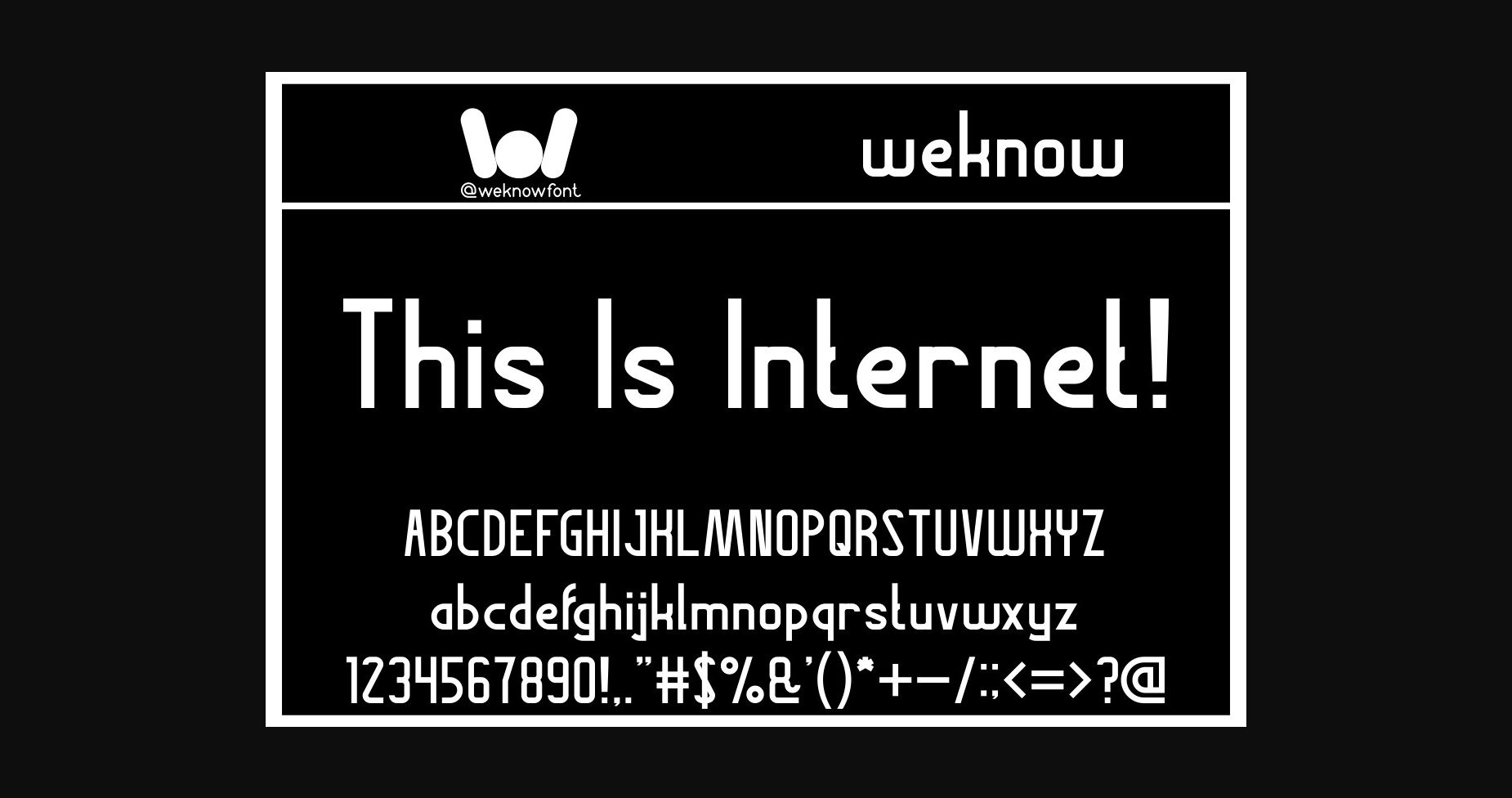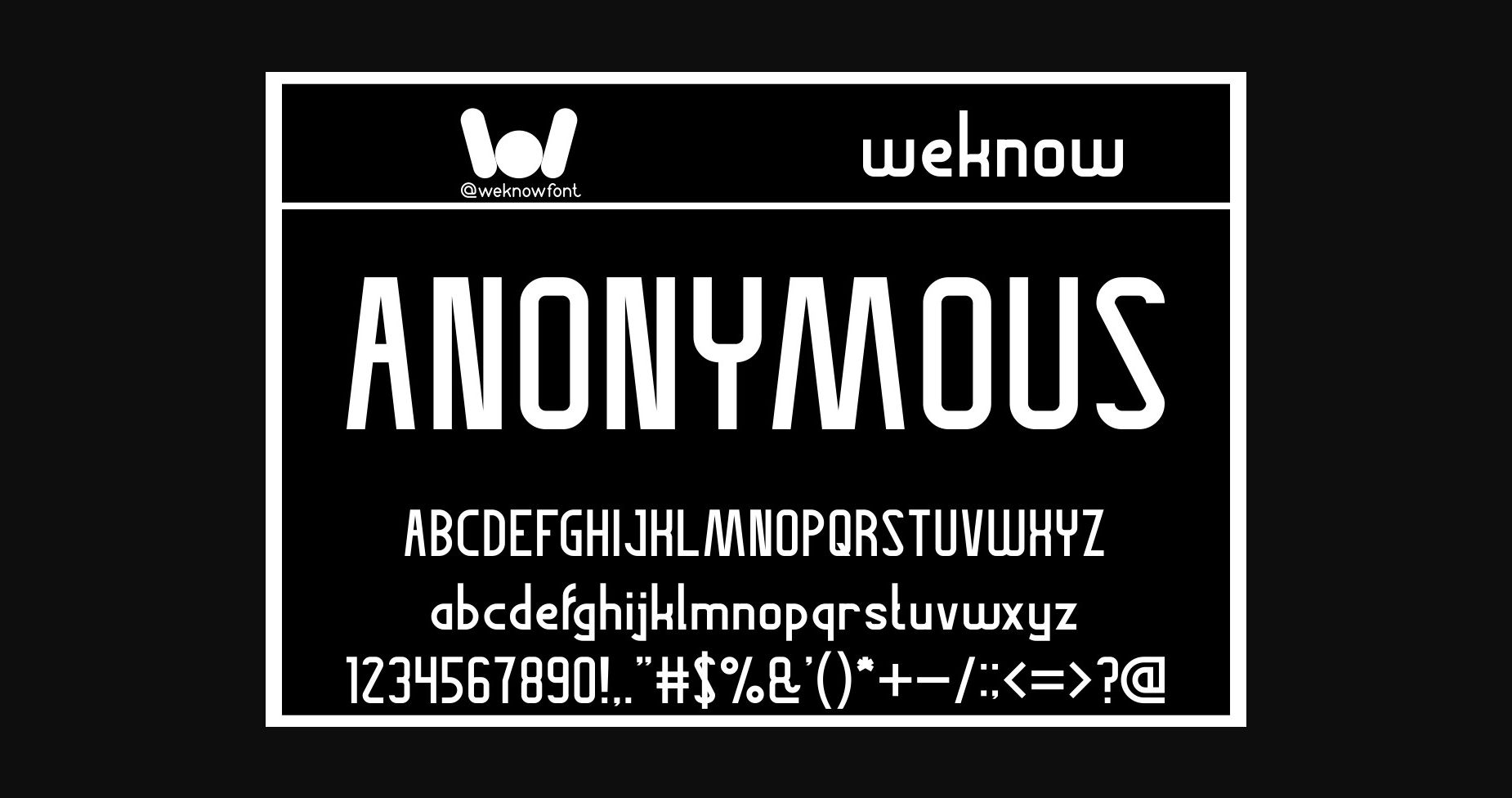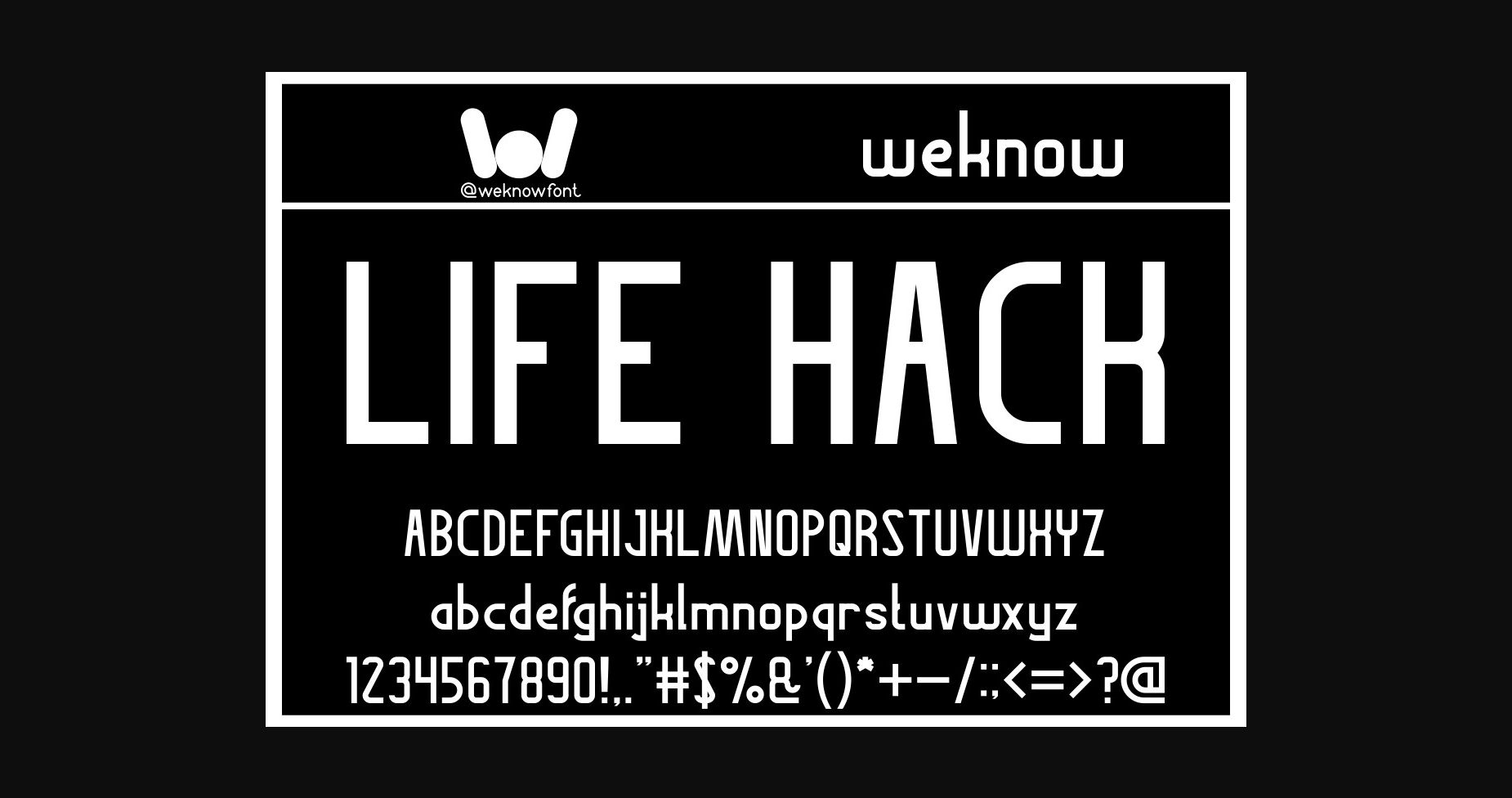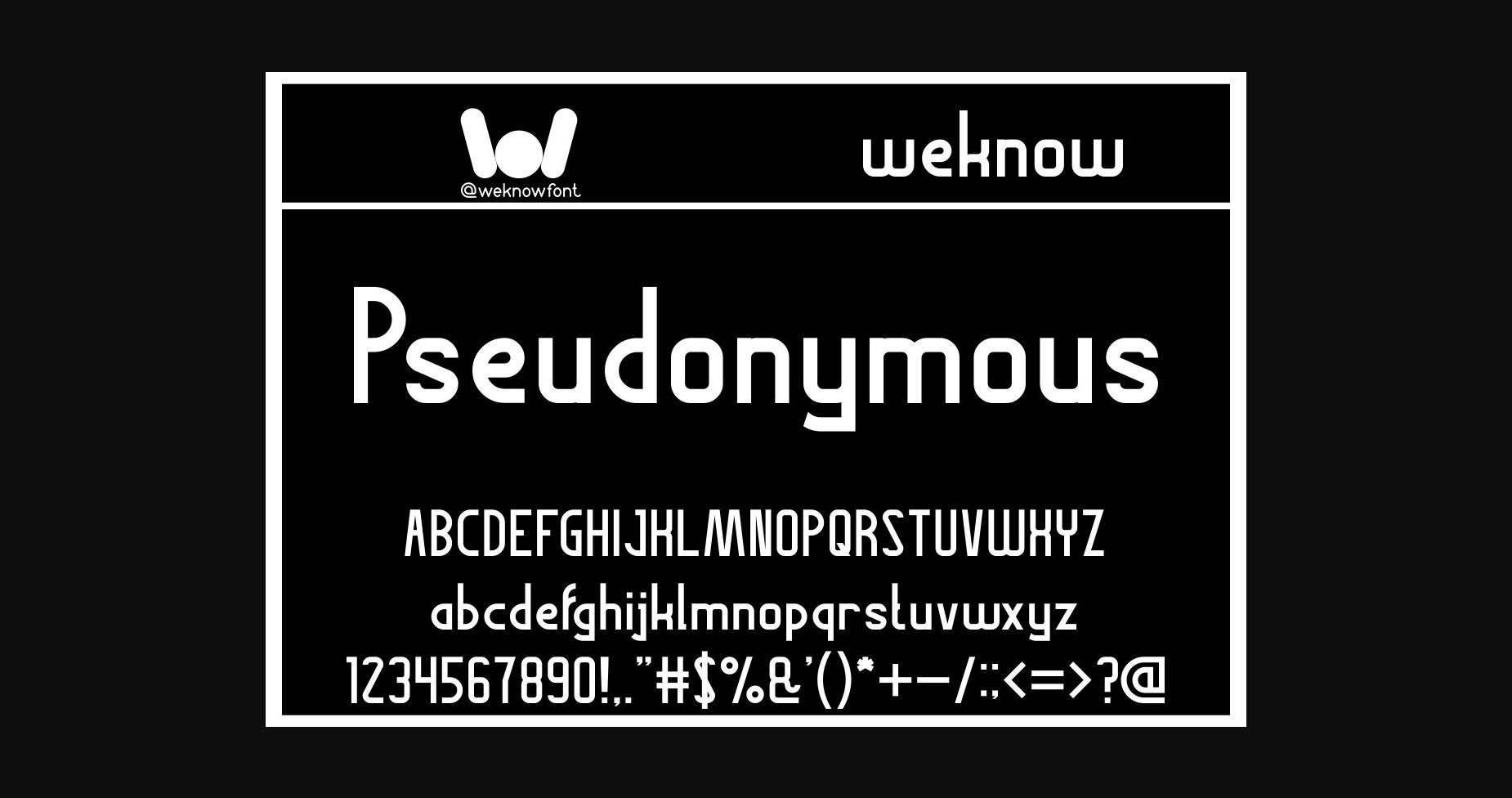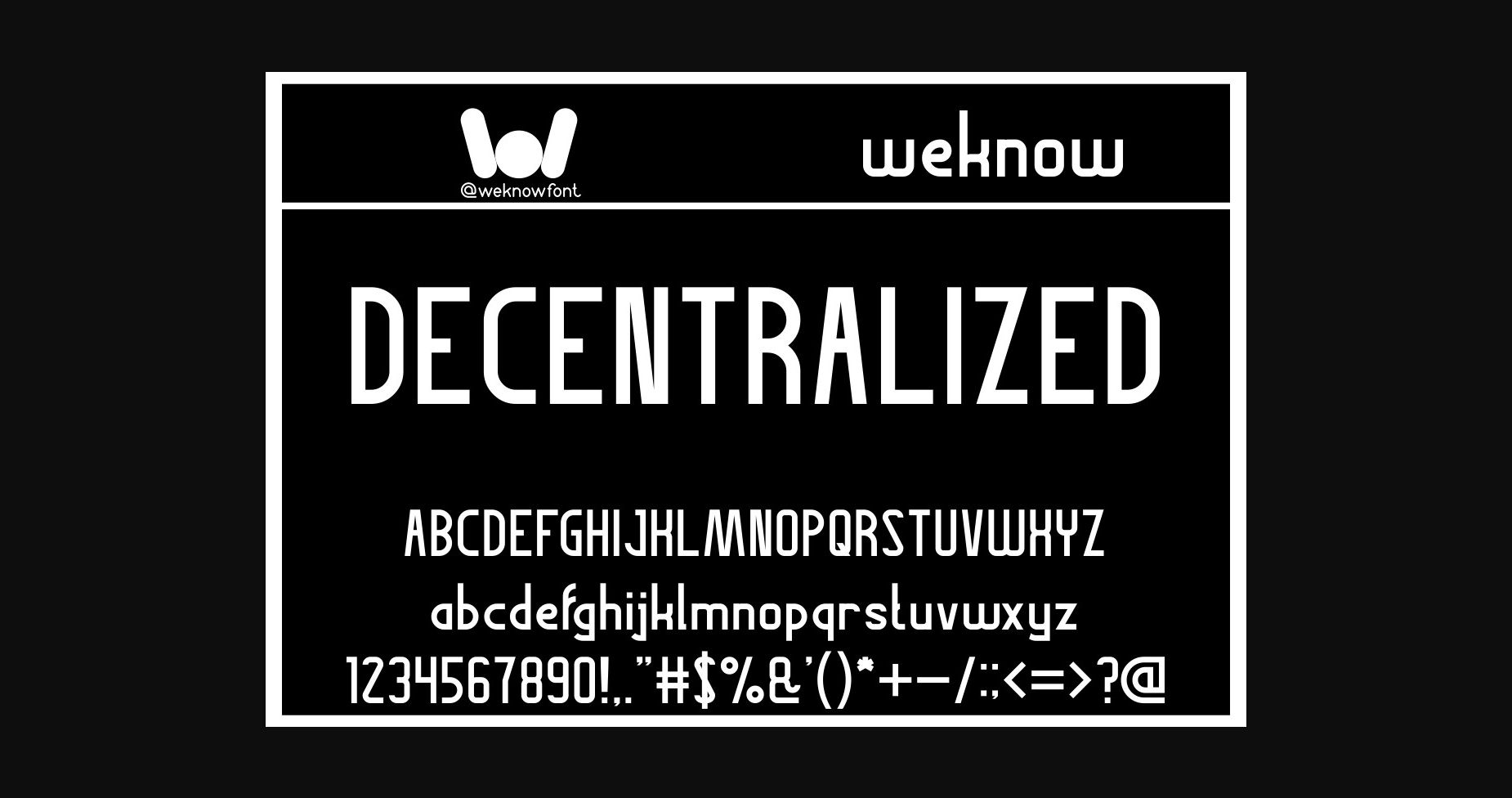
This is Internet Font
About This is Internet Font
This is Internet is a basic, cool and adaptable sans serif font. It is suitable for logos, headline font, in corporate identity, brand identity, apparel industry, poster, music, movie, game, magazine, book, comic, cartoon, YouTube, Instagram, website, or any of your creative design projects.